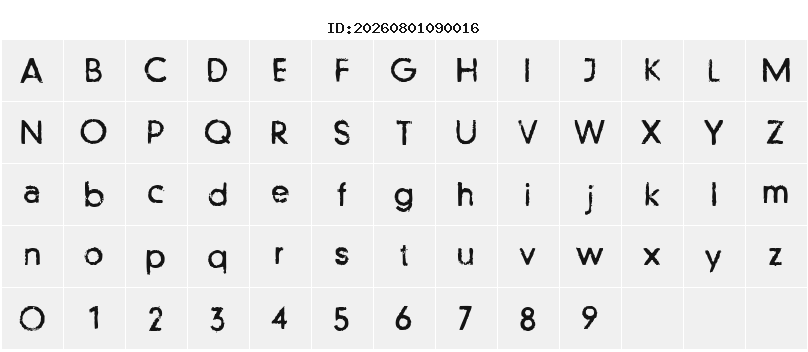
LLFutur Preview
• Font Name: LLFutur
• Font ID: LLFutur
• Full Font Name: LLFutur
• Designer: Markus Schroeppel
About LLFutur.ttf
LLFutur.ttf is a modern, elegant sans-serif font designed for ultimate readability and visual harmony. Perfect for branding, headlines, web design, and print materials.